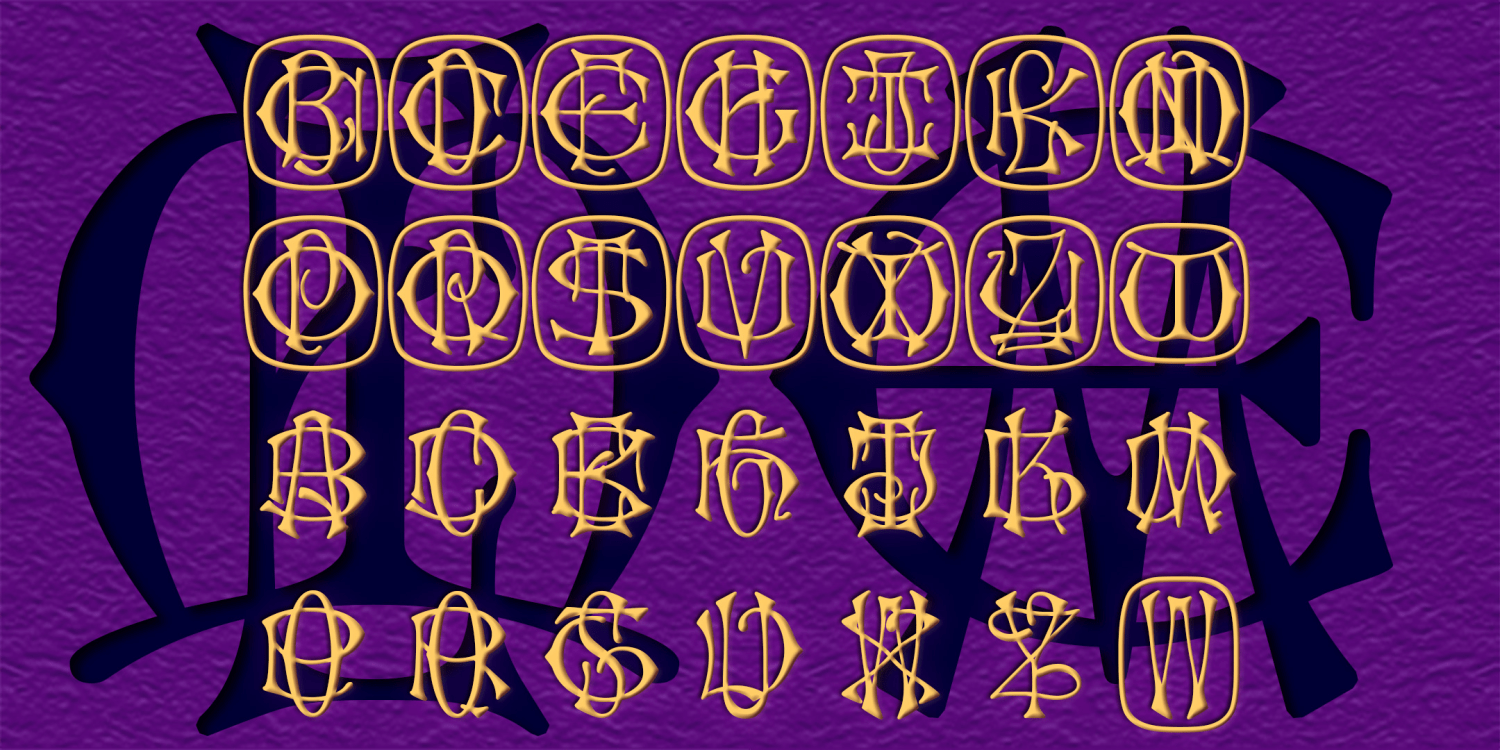
Entwined Monograms
Entwined Monograms allows you to easily make 2-letter monograms this unique vintage style. Each monogram is composed of a wide letter and a tall letter. The wide letters often take the lowercase form and the tall letters, the uppercase, helping to avoid excessive collision. There is an optional frame and two choices for each letter pair for more variety.
Inspired by an example of c. 1903 lettering by J. G. Schelter & Giesecke, Leipzig. Characteristic of art of that period, the letters are fanciful and biomorphic.